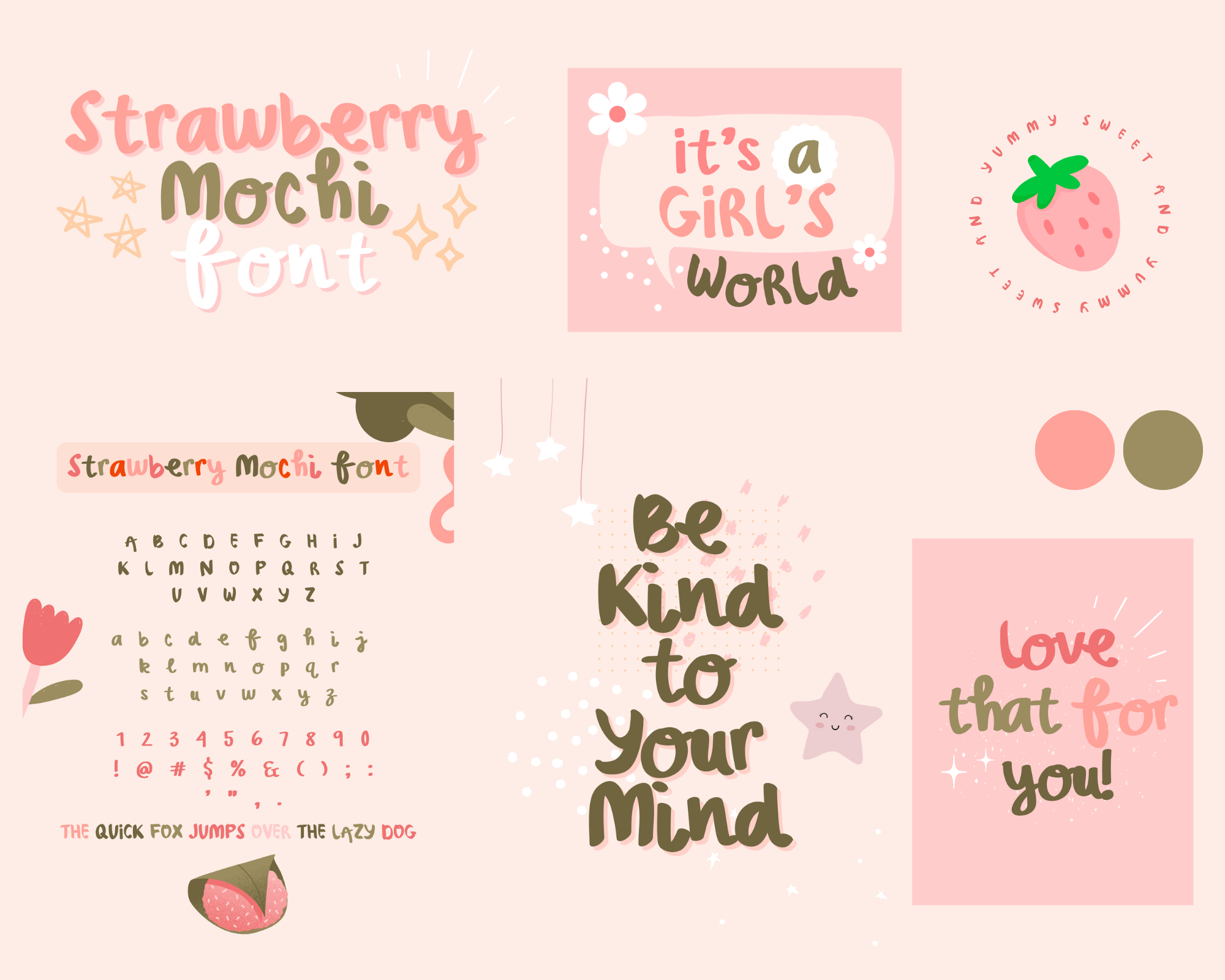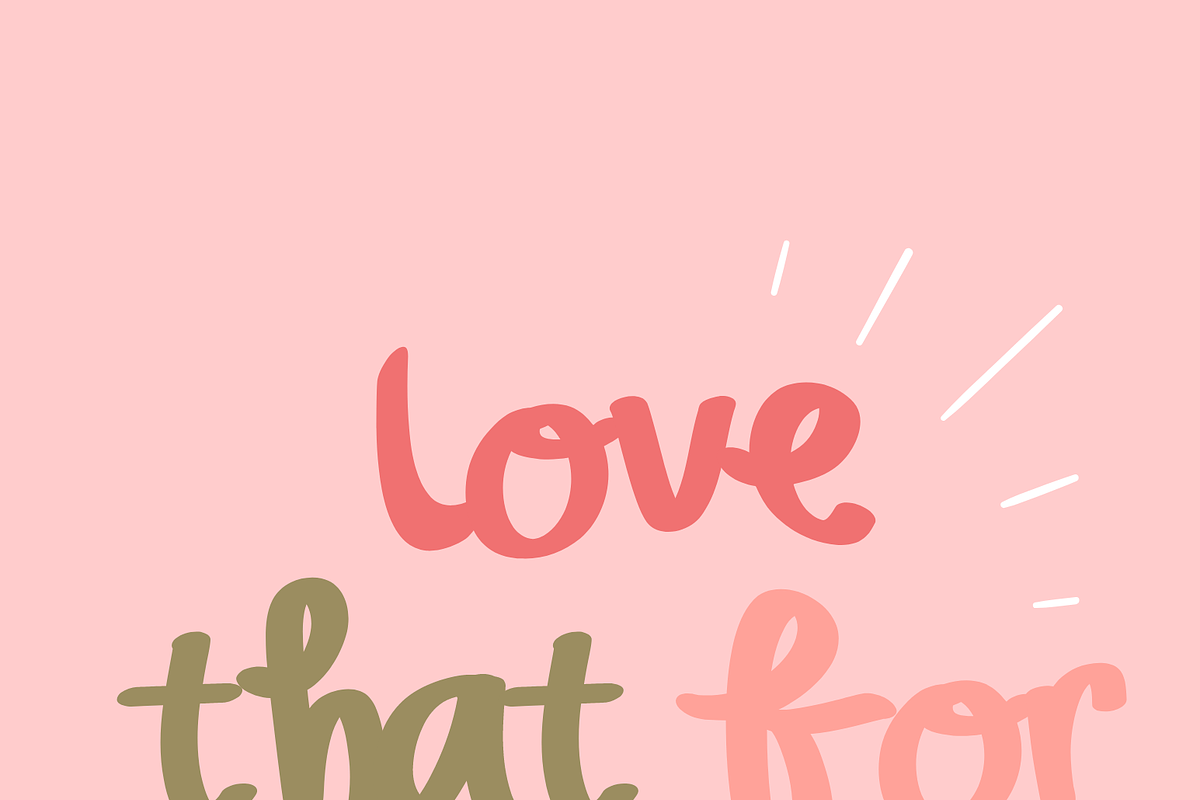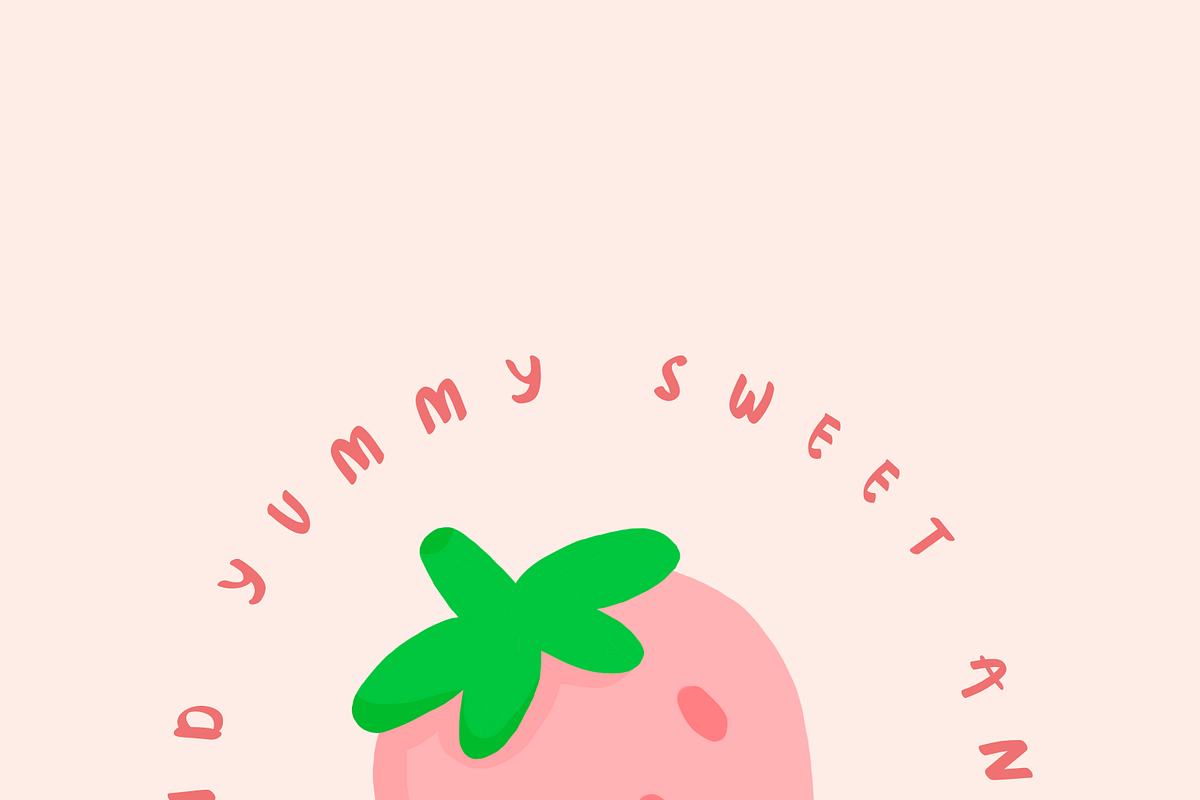
Strawberry Mochi Font
We introduce to you the "Strawberry Mochi" font! A scripted font made just for you and all of your future fave products.
Save time and create beautiful digital artwork with our fonts! Use the "Strawberry Mochi" Font to create one of a kind invitations, stickers, business cards, logos, icons, blog backgrounds, digital art, physical products, etc.